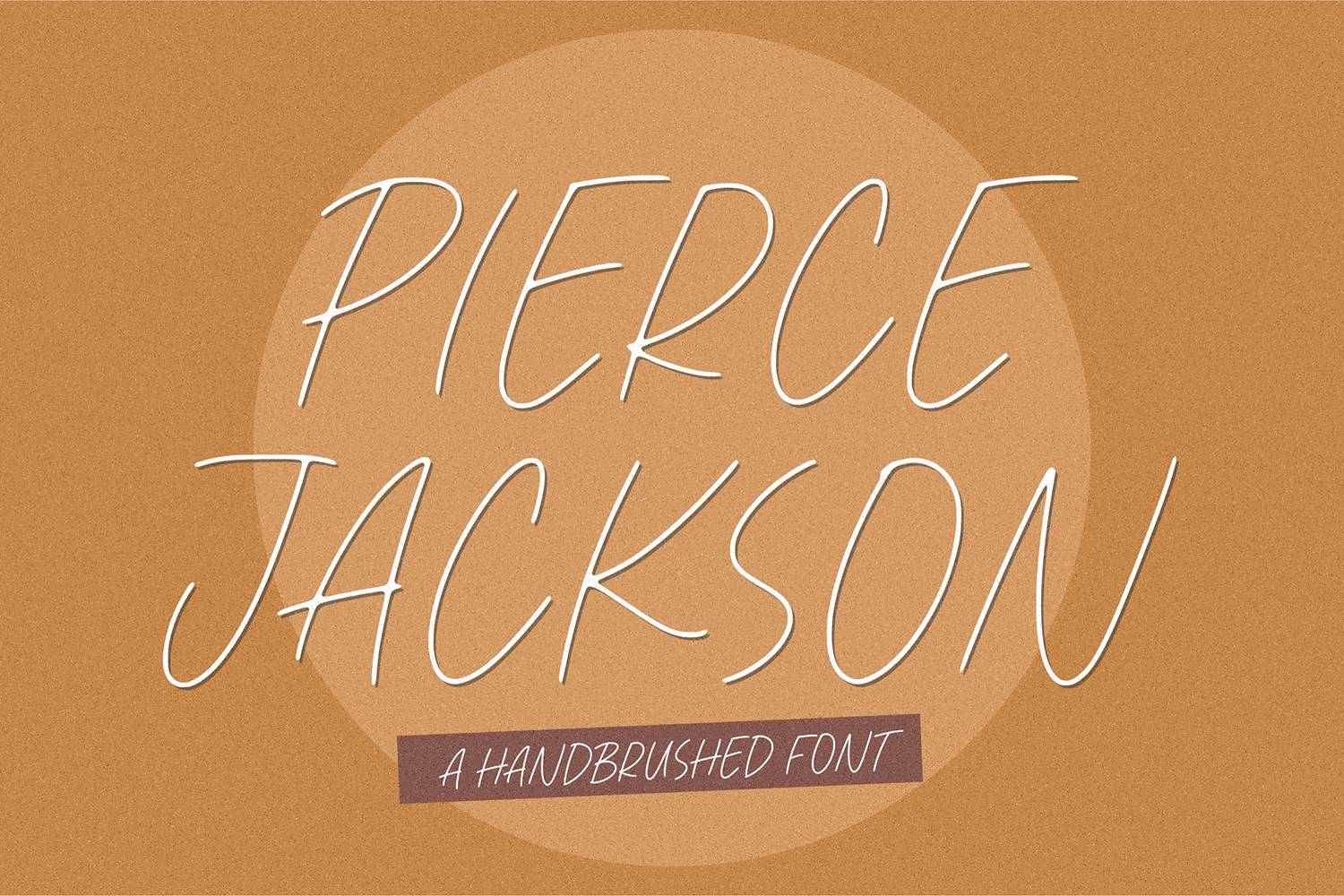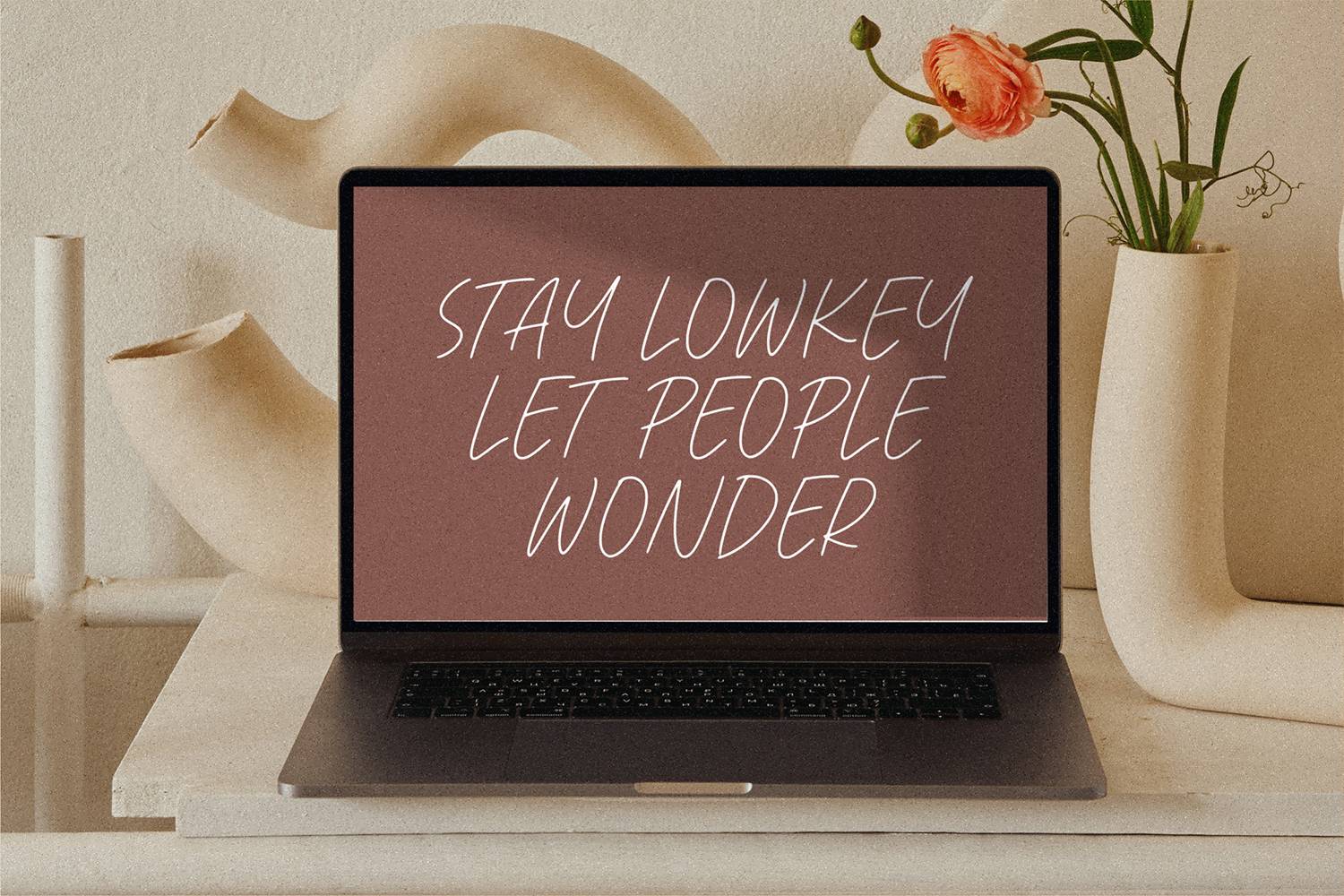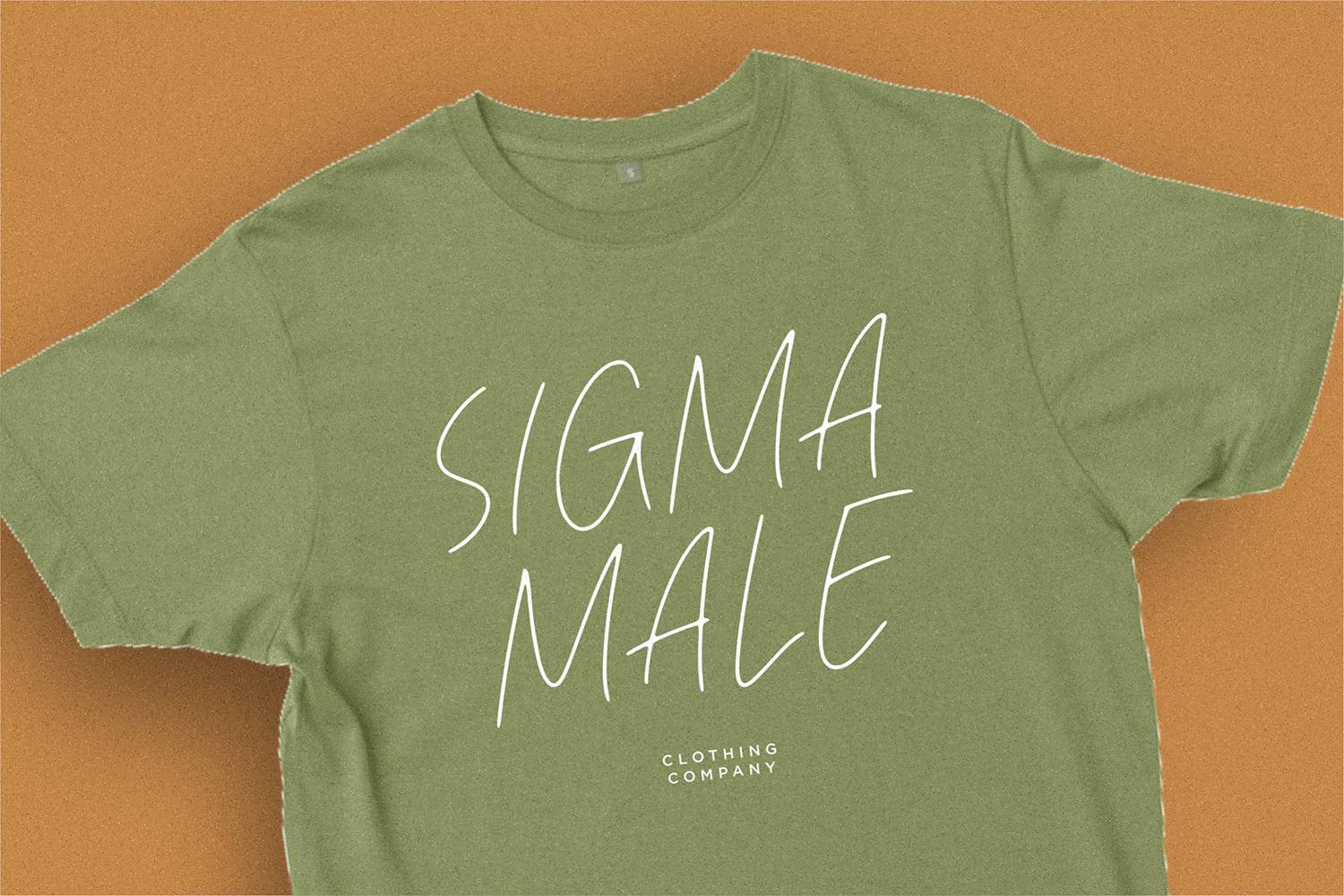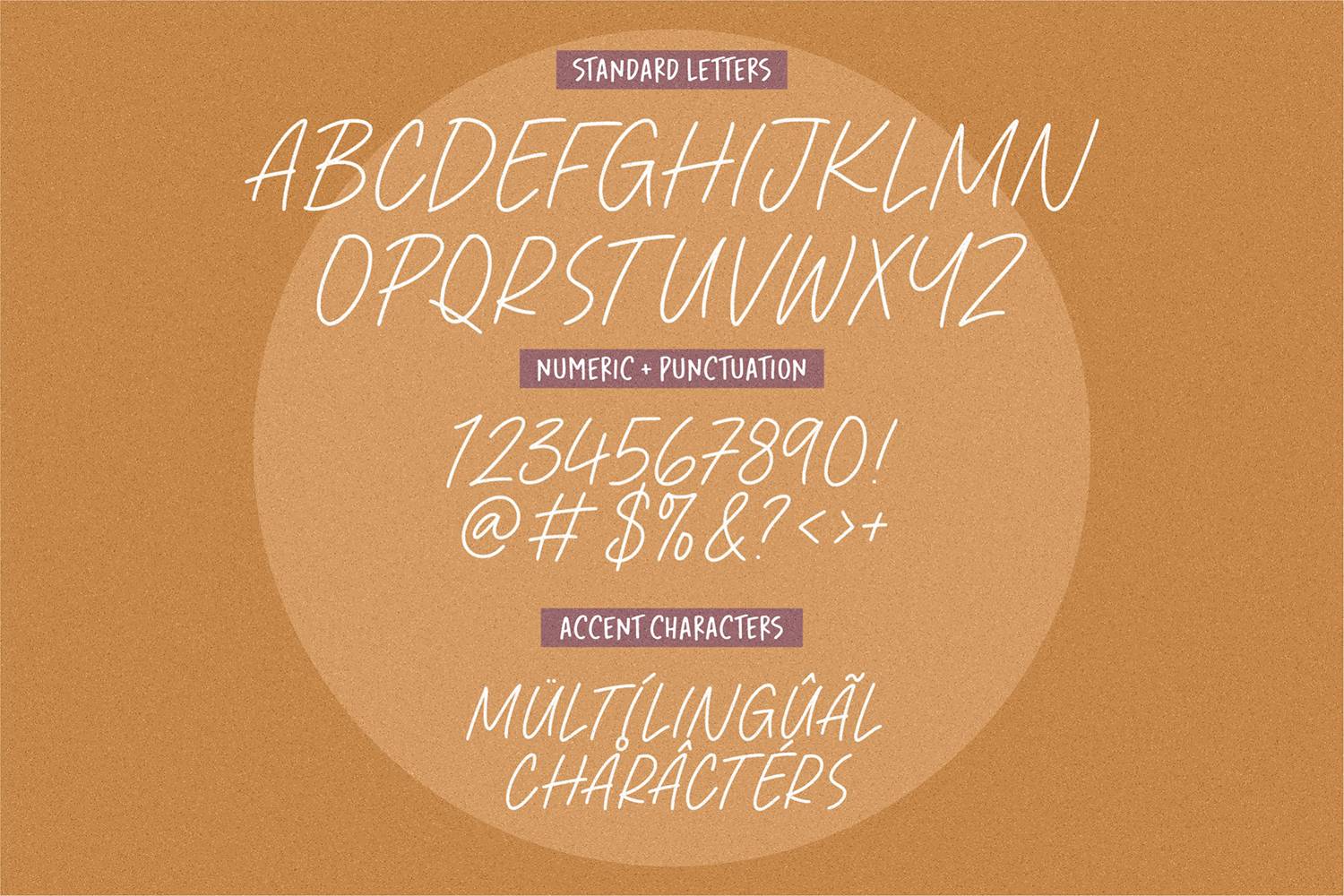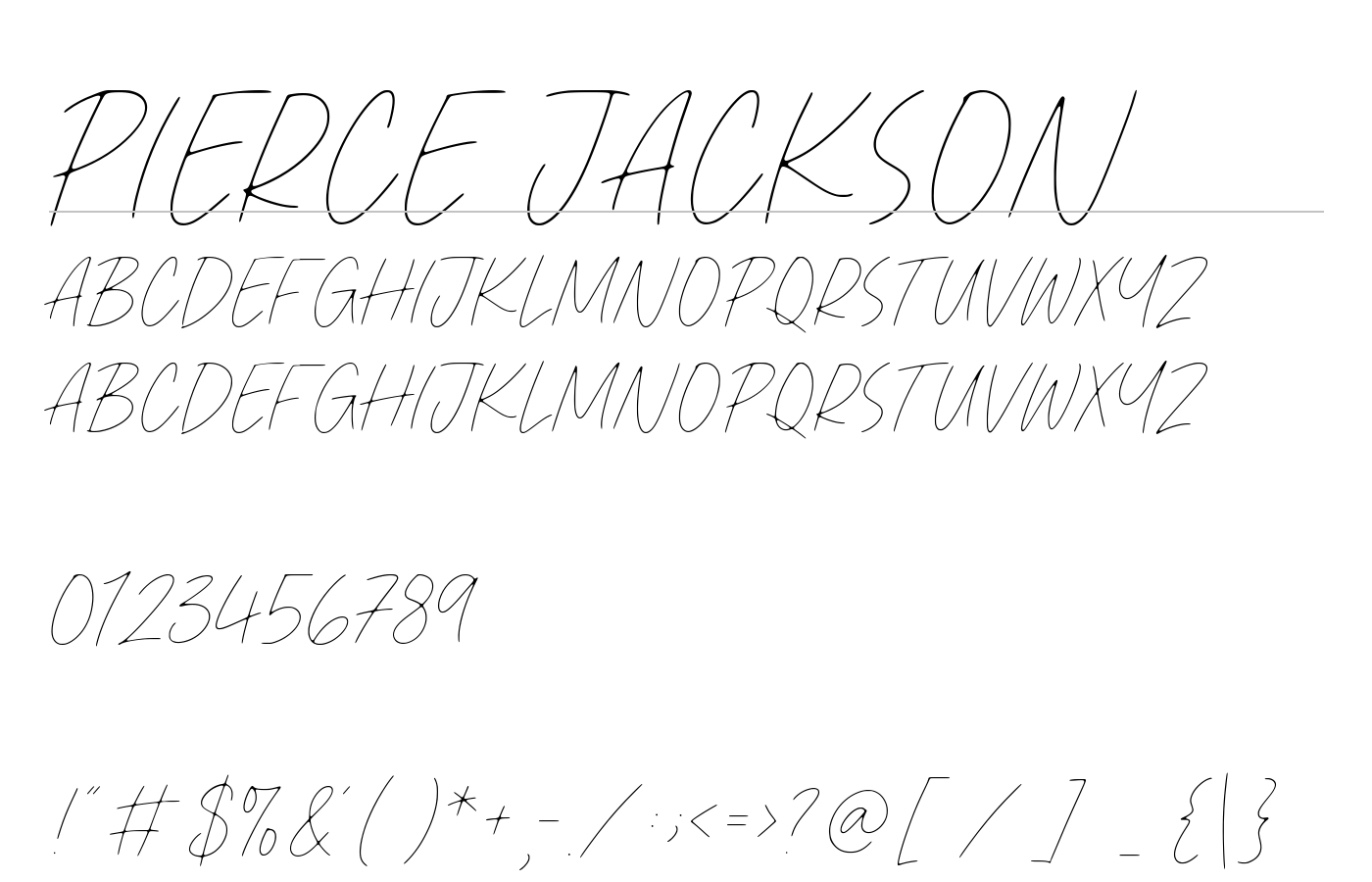
Pierce Jackson is a delicate, handwritten sans serif font with a narrow and airy design, featuring slender, flowing strokes that suggest elegance and a casual, personal touch. Its light weight and tall, slightly slanted letterforms make it ideal for projects seeking a refined yet approachable feel, such as invitations, fashion branding, or creative social media graphics. This font works best in headlines or short texts where its graceful, authentic style can truly stand out.
Pierce Jackson Font
About Pierce Jackson Font